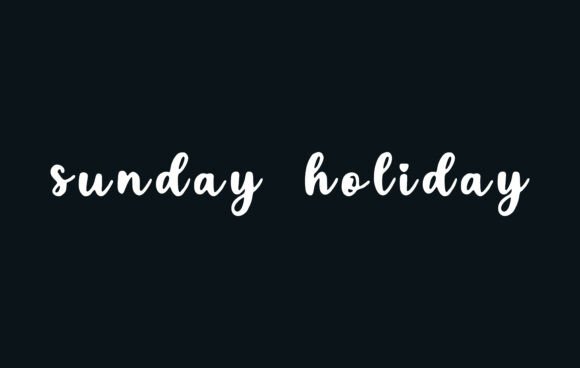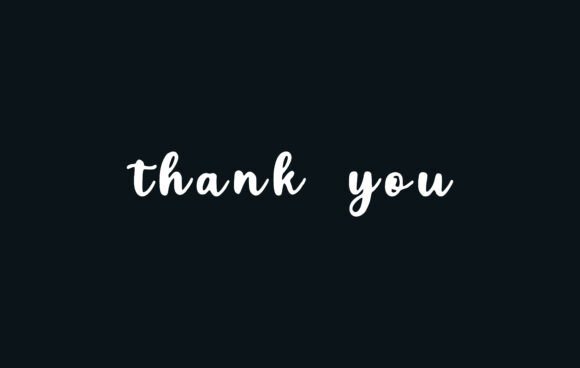
Introducing the Beautiful Annabelle Font: Elevate Your Designs with a Romantic Touch
In the world of typography, a font can make all the difference in the success of a design project. If you’re a designer or crafter looking for a unique and elegant handwritten font to add a romantic touch to your creations, look no further than the Annabelle font. This authentic handwritten font is expertly designed to capture the hearts of designers and audiences alike, making it a true favorite among typography enthusiasts.
The Characteristics of Annabelle Font
So, what makes the Annabelle font so special? For starters, its authentic handwritten style gives it a personal and organic feel that’s perfect for designs that require a touch of warmth and personality. The font’s romantic touch is evident in its flowing lines and delicate curves, making it an excellent choice for projects that require a sense of elegance and sophistication.
But what really sets Annabelle apart is its exceptional legibility. Whether you’re using it as a title or body text, this font is easy to read and understand, making it perfect for a wide range of design applications. From magazine headlines to social media posts, branding materials to wedding invitations, Annabelle font is the perfect choice for any project that requires a touch of romance and whimsy.
Uses for Annabelle Font
The versatility of Annabelle font is one of its most significant advantages. This font can be used in a variety of design projects, including:
- Magazine Headlines: Add a touch of elegance to your magazine headlines with Annabelle font. Its romantic style is perfect for fashion, lifestyle, and entertainment publications.
- Social Media: Make your social media posts stand out with Annabelle font. Use it to create eye-catching graphics, quotes, and promotional materials that will engage your audience.
- Branding: Establish your brand’s identity with Annabelle font. Use it to create logos, business cards, and letterheads that reflect your brand’s personality and values.
- Wedding Invitations: Make your wedding invitations truly special with Annabelle font. Its romantic style is perfect for wedding stationery, save-the-date cards, and thank-you notes.
- Cards: Create beautiful greeting cards for special occasions with Annabelle font. From birthday cards to get-well cards, this font is sure to add a touch of elegance to your designs.
Why Choose Annabelle Font?
With so many fonts available, why choose Annabelle font? Here are just a few reasons why designers and crafters love this font:
- Unique Style: Annabelle font has a unique and authentic handwritten style that’s sure to set your designs apart from the crowd.
- Ease of Use: This font is easy to read and understand, making it perfect for a wide range of design applications.
- Romantic Touch: Add a touch of romance and whimsy to your designs with Annabelle font’s elegant and flowing lines.
- Versatility: Use Annabelle font in a variety of design projects, from magazine headlines to social media posts, branding materials to wedding invitations.
In conclusion, Annabelle font is a beautiful and elegant handwritten font that’s perfect for designers and crafters looking to add a romantic touch to their designs. With its authentic style, exceptional legibility, and versatility, this font is sure to become a true favorite among typography enthusiasts. Whether you’re working on a magazine headline, social media post, branding material, or wedding invitation, Annabelle font is the perfect choice for any project that requires a touch of elegance and sophistication.